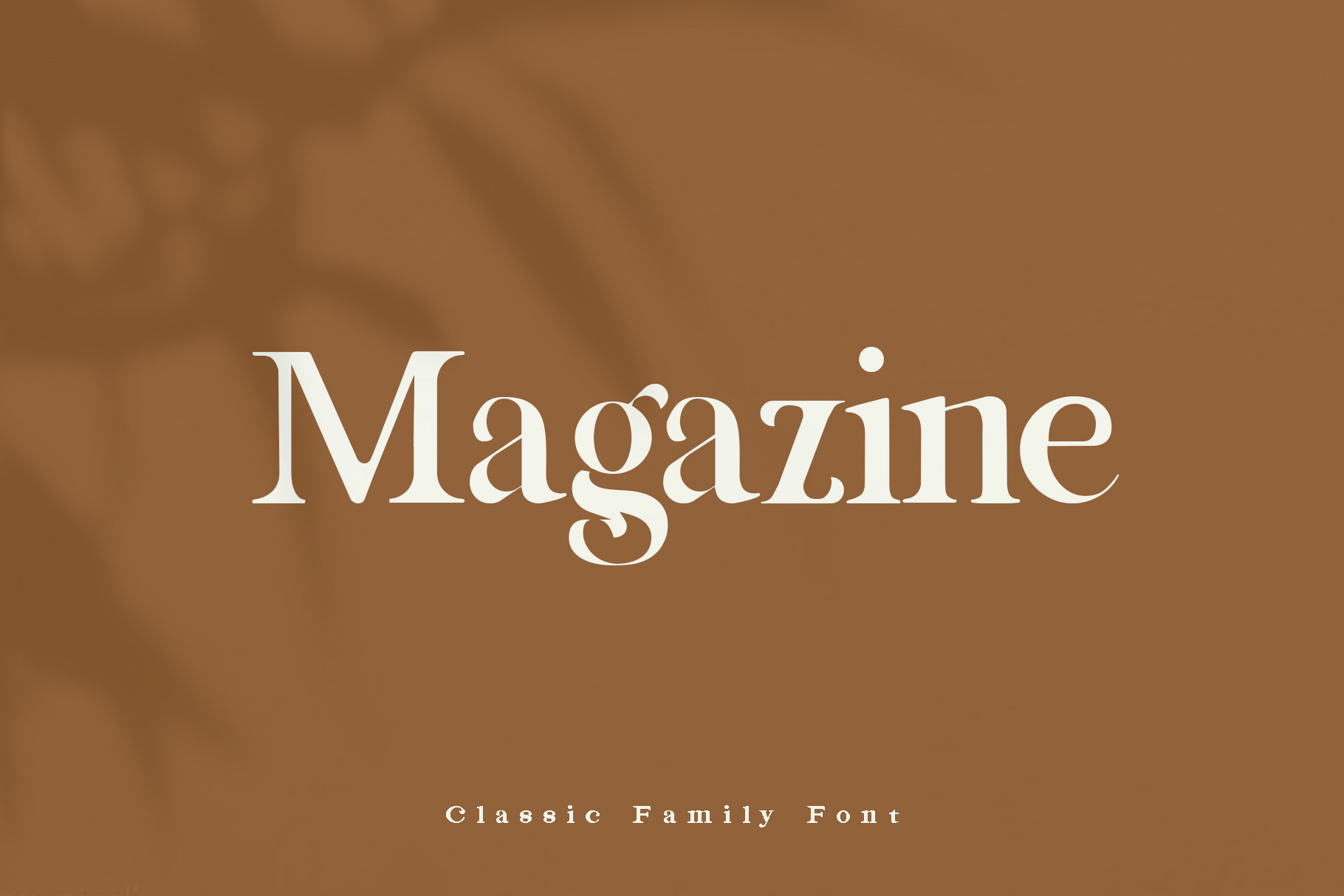
Magazine Family Font
Magazine family font is a bold and bold serif font, this font is perfect for writing short story, newspaper or magazine contents, or it can also be used for a number of designs such as invitation designs, baner designs, logos, branding packaging, book covers, wedding invitations.
Magazine family font consists of 4 font styles : Regular, Bold, Italic and Bold Italic